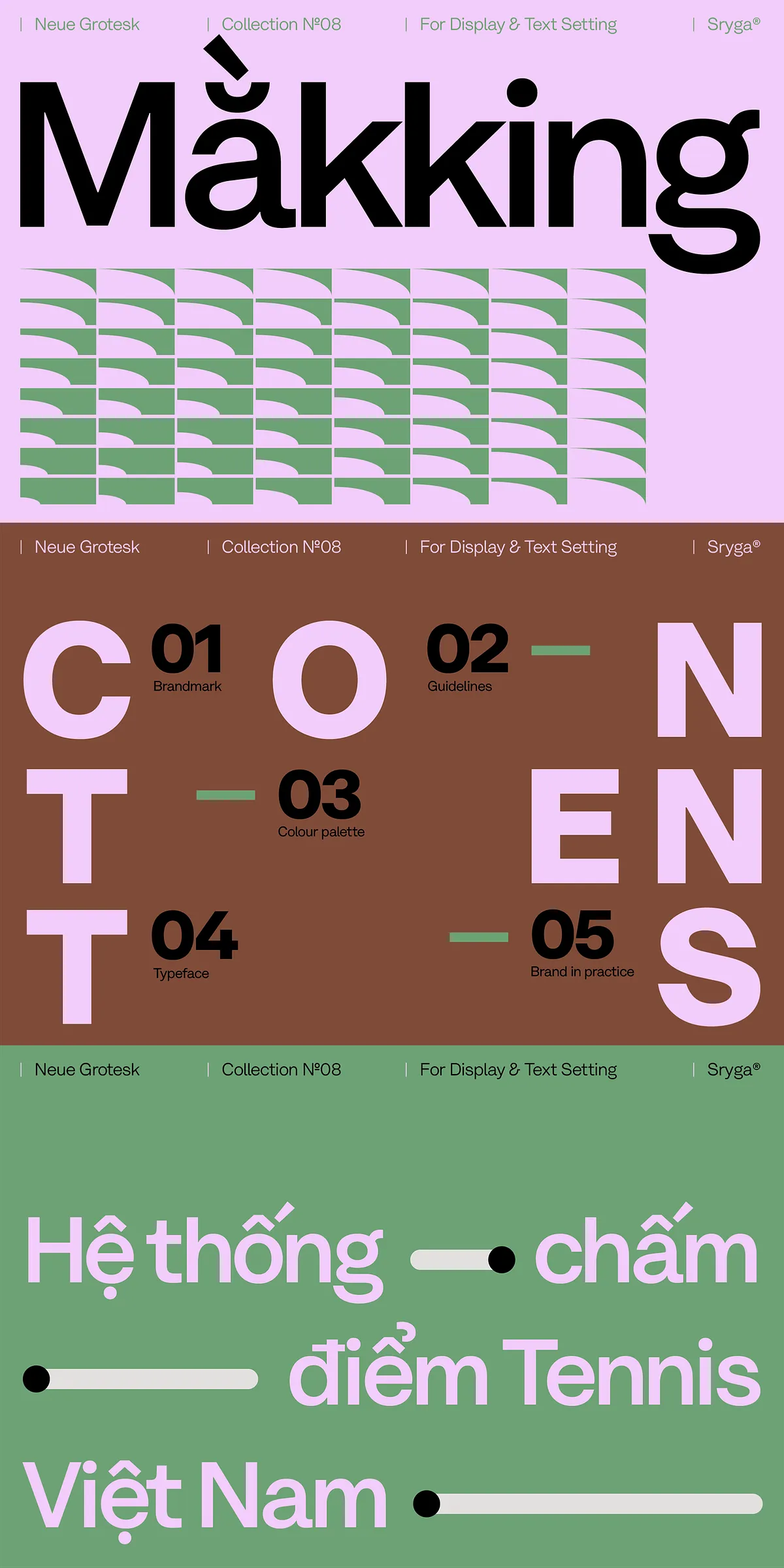
Meet Makking—the typeface that dares to be different. Where most fonts play it safe, Makking thrives on the edge of predictability, combining razor-sharp precision with a sprinkle of delightful unpredictability. It’s not just a tool for your next project—it’s a creative catalyst that brings personality, energy, and soul to written language.
Whether you’re crafting a headline that demands attention or a subtle caption that whispers charm, Makking rises to the challenge with effortless clarity and bold character. Its sleek, clean lines ensure flawless readability at any size, while its subtle quirks—unexpected flourishes, asymmetric strokes, and hand-influenced spacing—deliver a refreshingly authentic, handcrafted aesthetic.
Designed for Impact, Built for Versatility
Makking was built with modern design workflows in mind. It handles both large-scale visuals and small-scale details with the same level of finesse. Use it for:
- Bold Headlines & Branding: Command attention with confident, crisp typography that feels both professional and expressive.
- Tiny Captions & Microcopy: Even at smaller sizes, Makking maintains clarity and charm—perfect for icons, product tags, and UI text.
- Social Media Graphics & Ads: Make your messaging stand out in cluttered feeds with a font that’s instantly memorable.
- Editorial & Digital Layouts: Enhance stories with text that feels personal, alive, and full of character.
Why Makking Stands Out: The Art of Intelligent Design
What makes Makking more than just a stylish font is its deep design intention. Each character is thoughtfully crafted to balance form and function:
- Optimized Letter Spacing: Prevents visual crowding, especially in tight text blocks, without sacrificing style.
- Contextual Alternates: Letters adapt their shape based on position and surrounding characters—adding rhythm and natural flow.
- High-Contrast Weight Variability: Seamless transitions from light to bold weights ensure visual harmony across layouts.
- Multi-Script Support: Full Latin character set, including punctuation, numerals, and diacritics, with smooth rendering across languages.
No matter the size or medium, Makking adapts with grace, making your content not just readable—but unforgettable.
Bring Your Vision to Life—Design with Confidence and Character
Makking isn’t designed for the safe, uninspired choices. It’s for designers who believe typography should excite, engage, and tell a story. Every curve, every stroke, and every subtle imperfection is intentional—crafted to add meaning, rhythm, and human touch to your work.
Don’t just communicate—connect. Don’t just design—inspire. Let Makking carry your message with personality, precision, and a hint of playful rebellion.